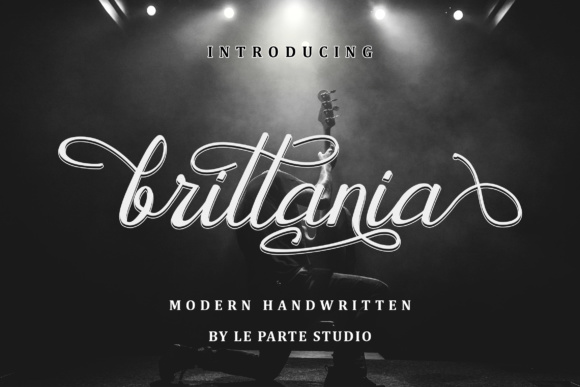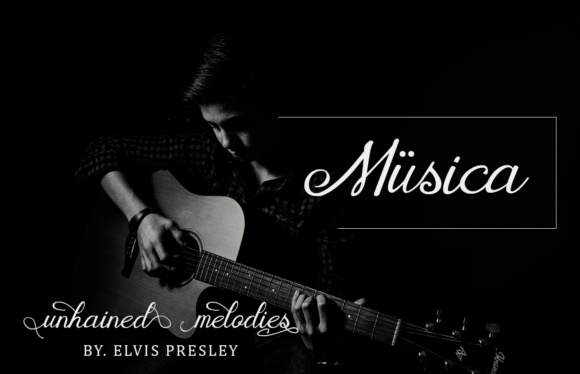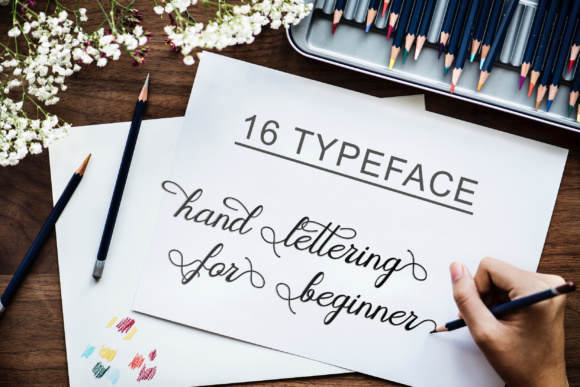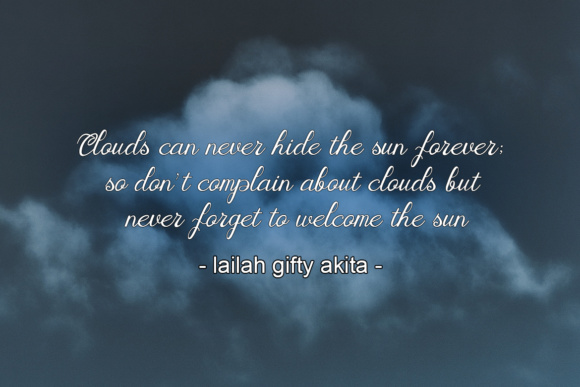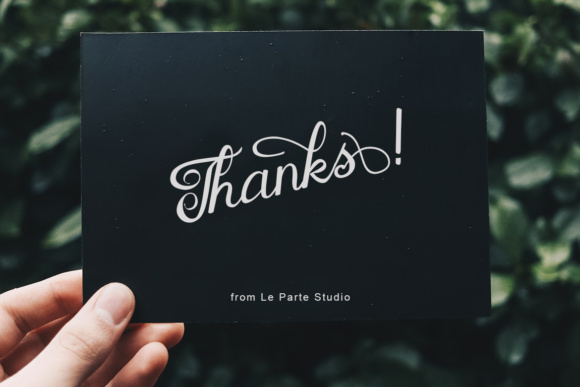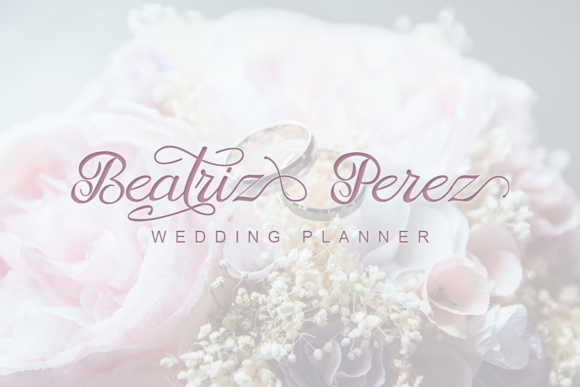
Brittania Font
About Brittania Font
The Brittania is a modern handwritten script. It was made with decorative characters and a dancing baseline to give your designs the ultimate elegant calligraphy style.